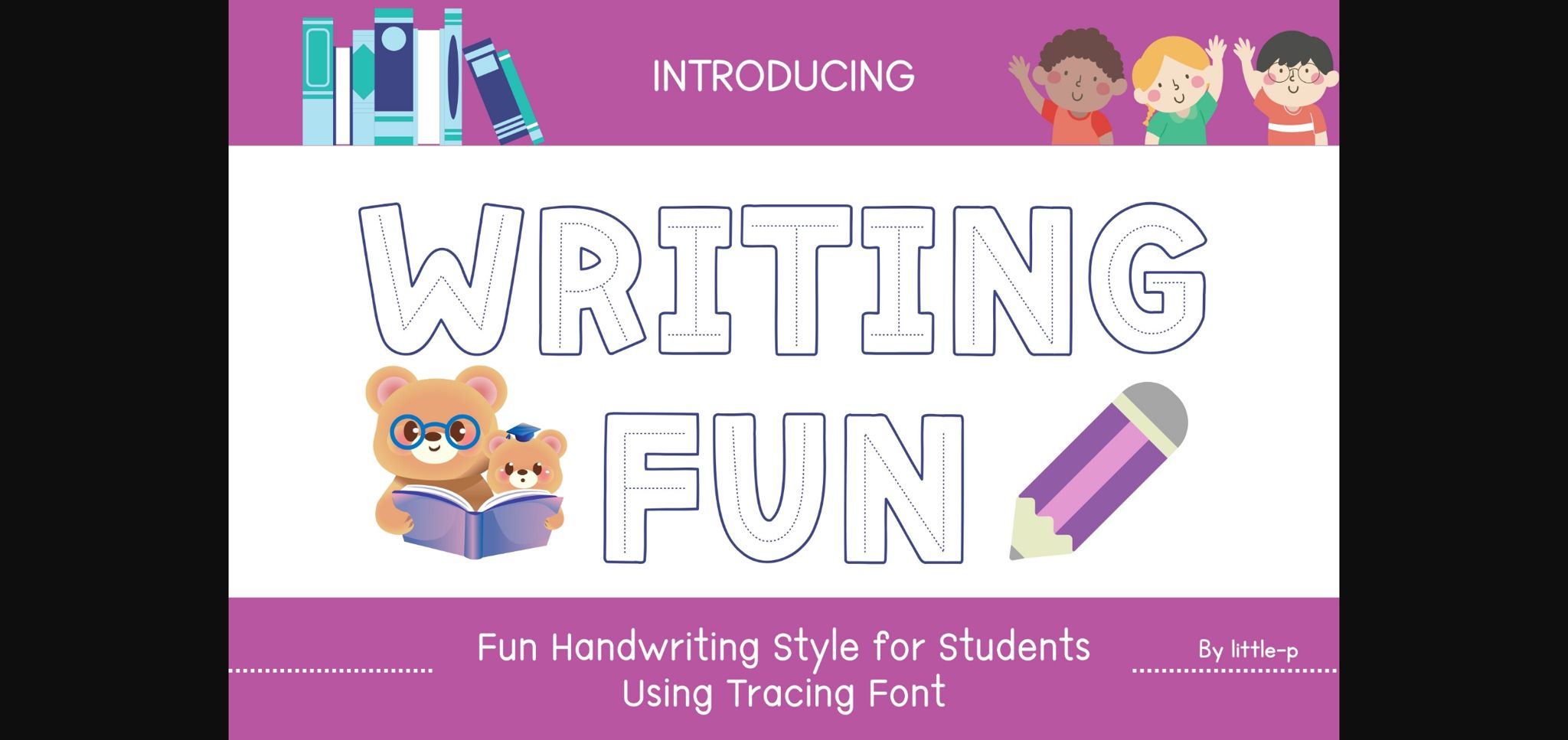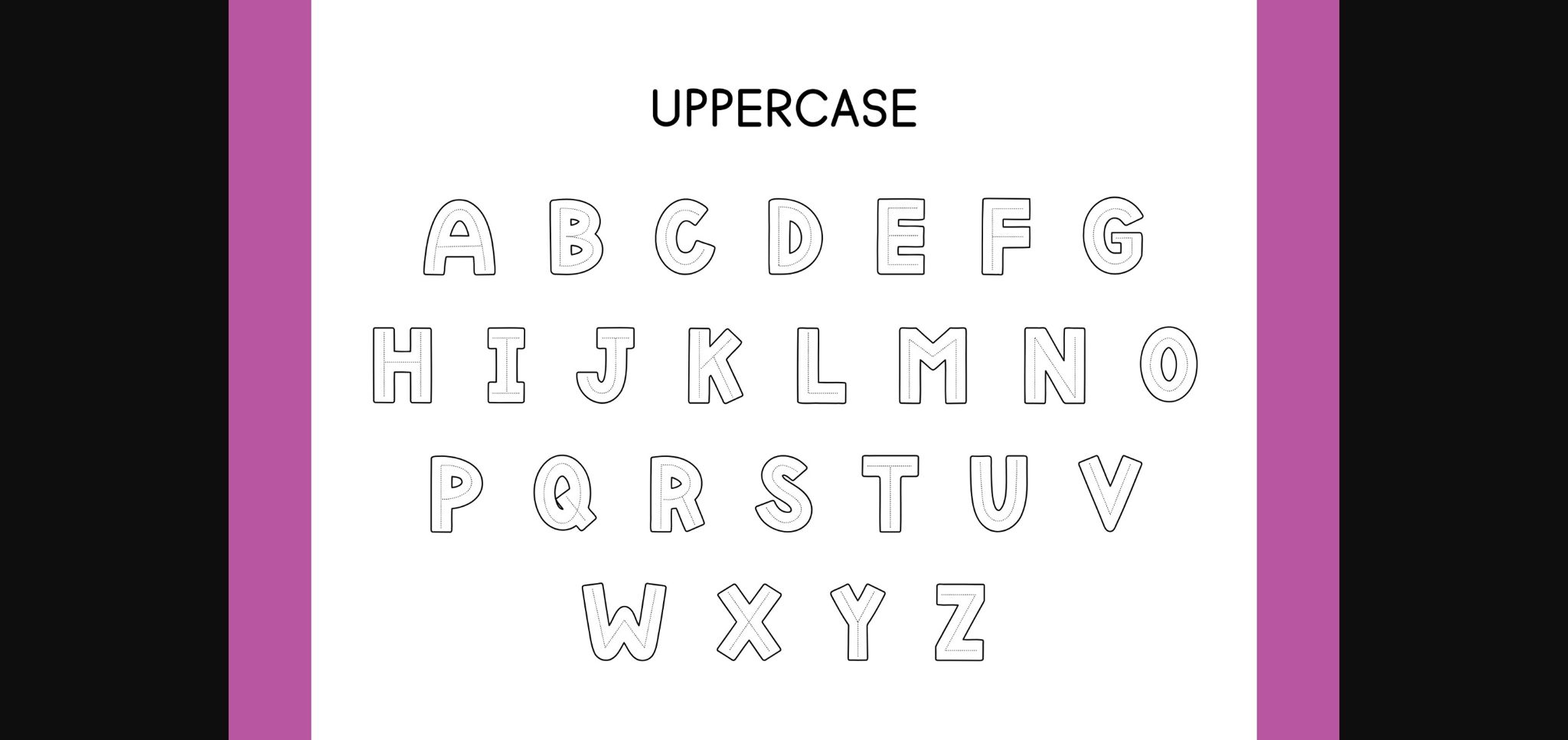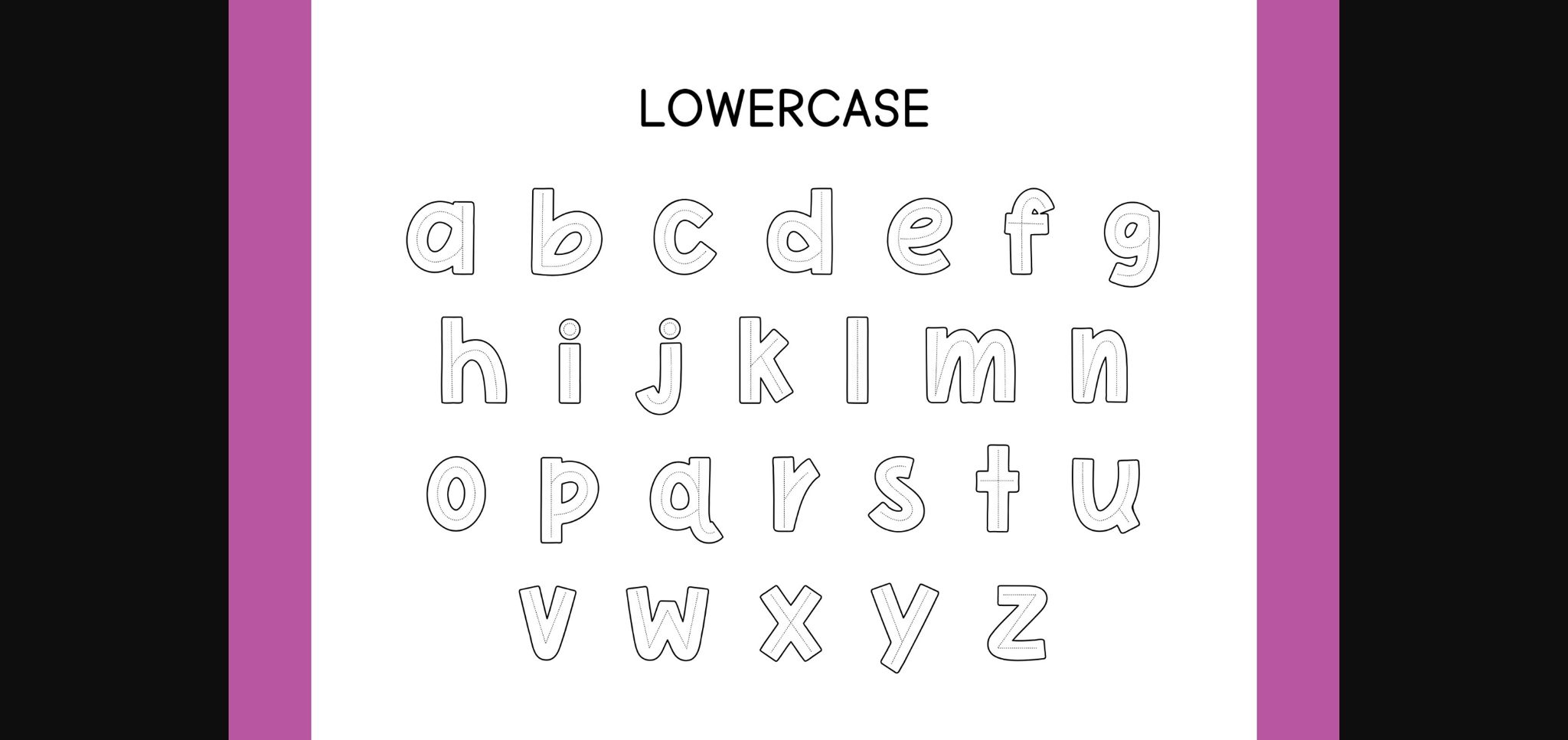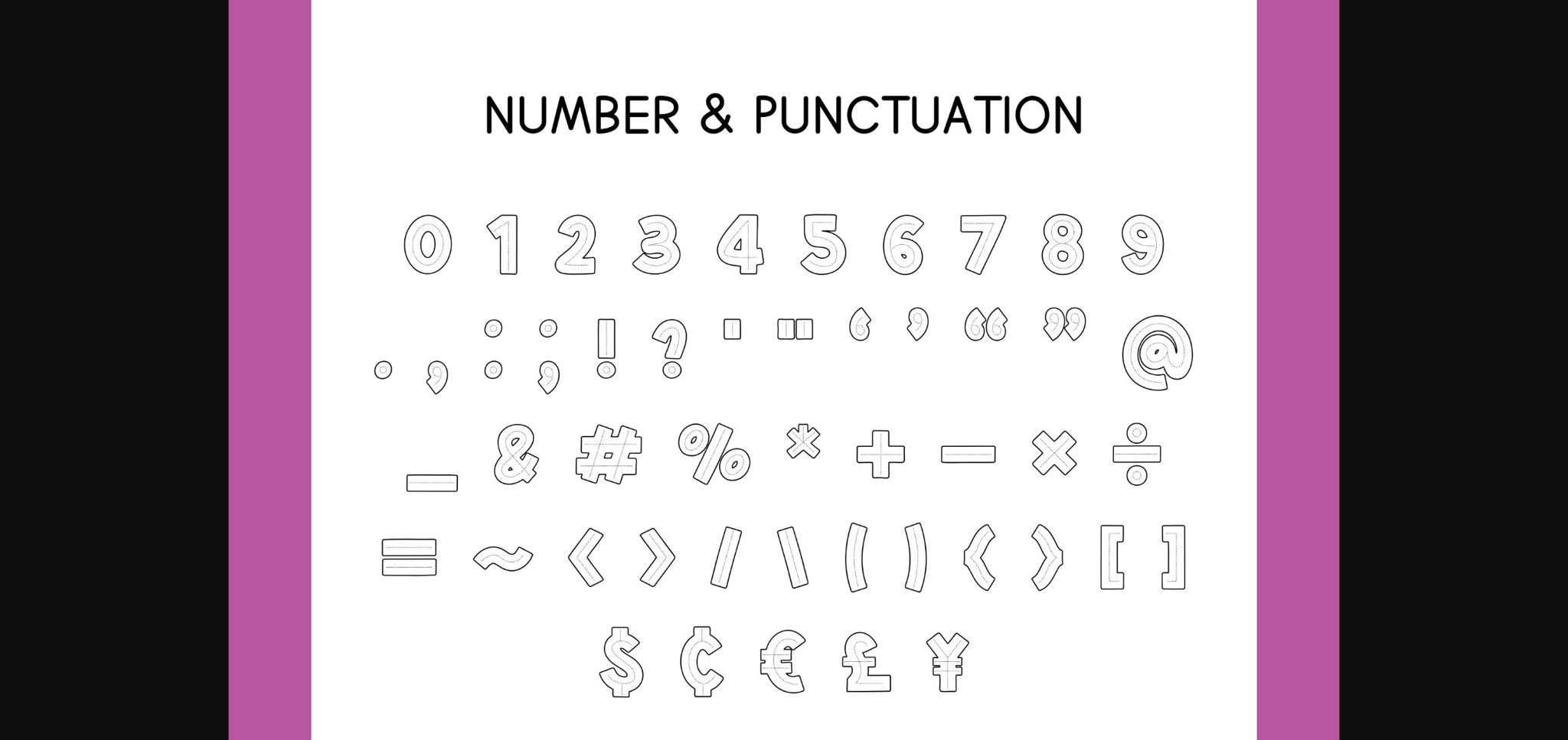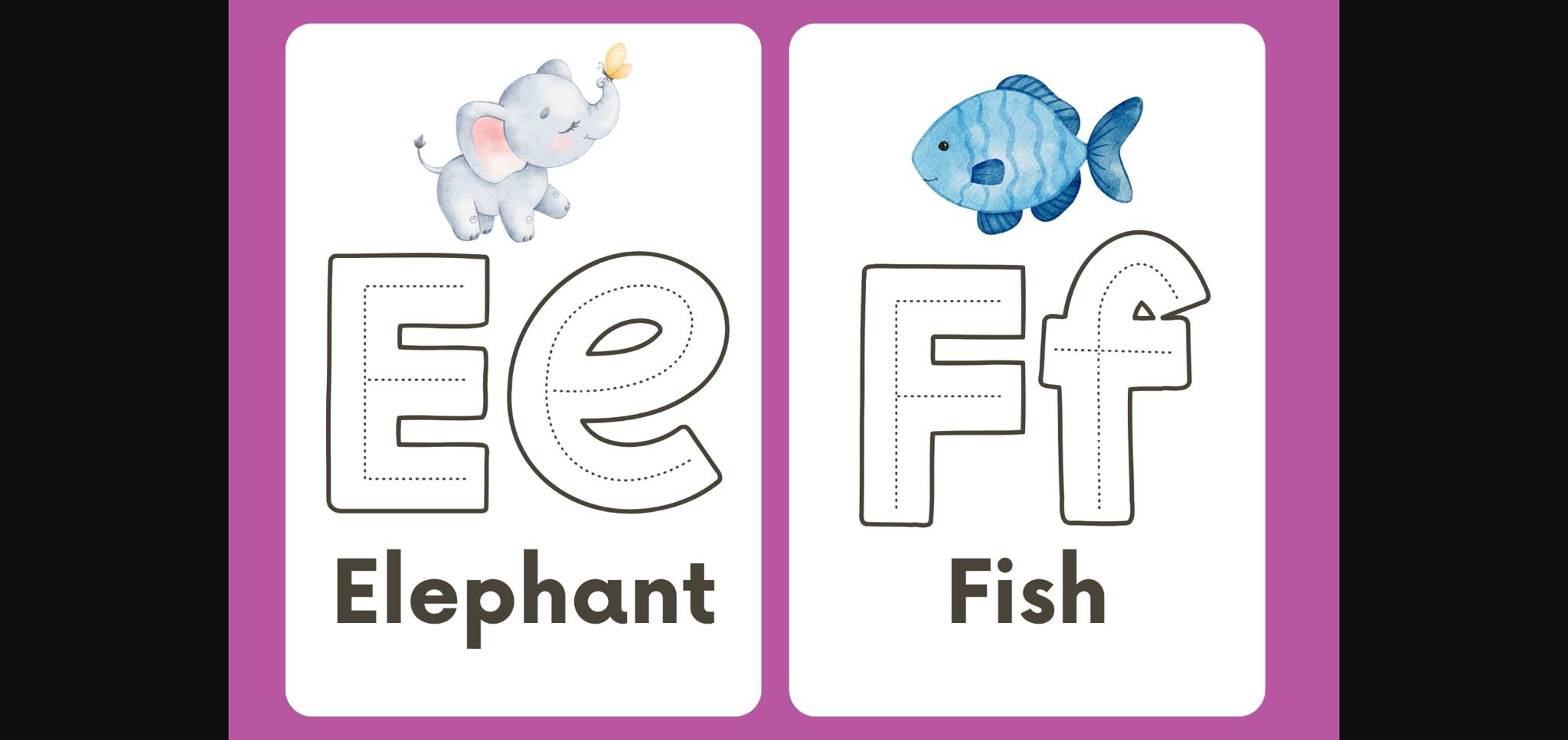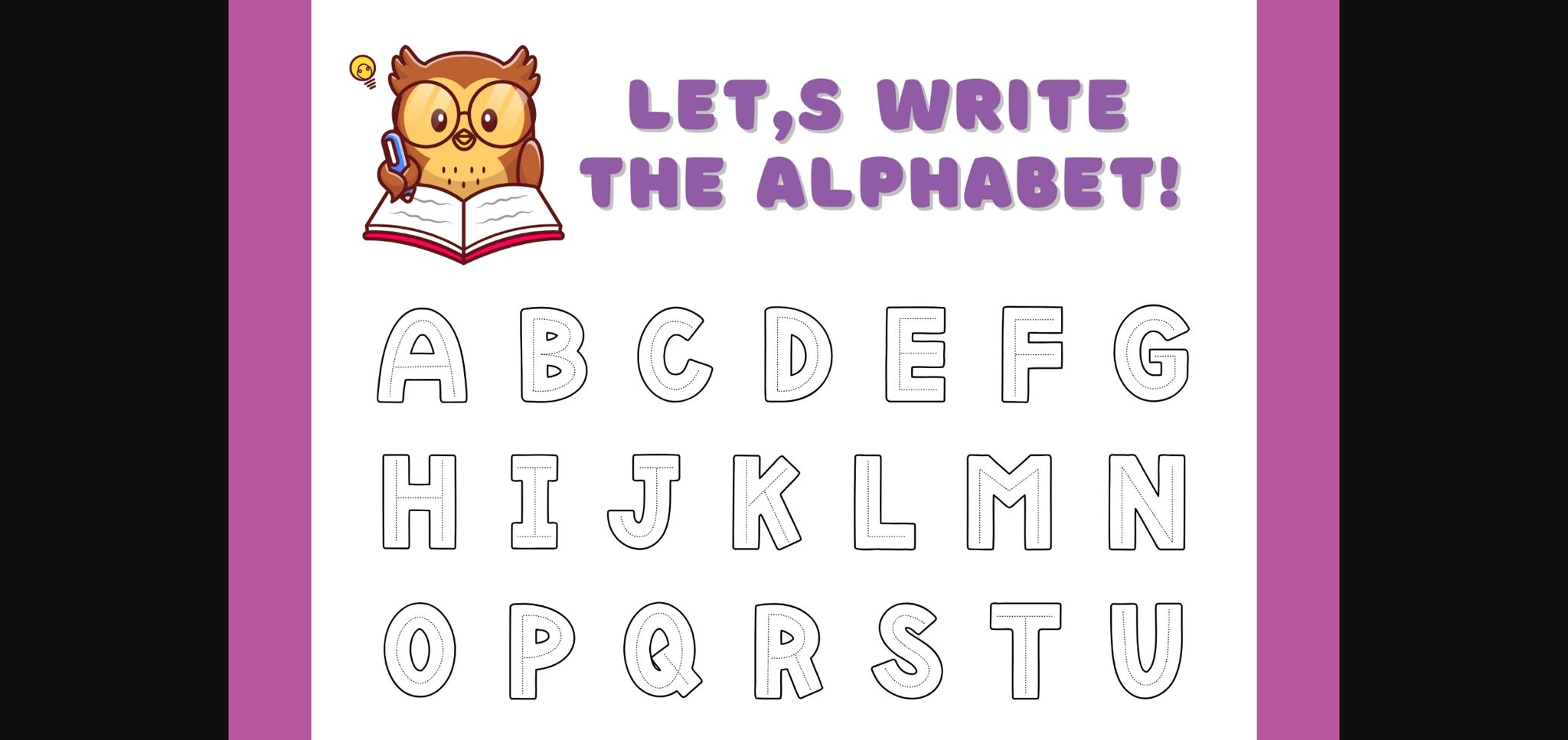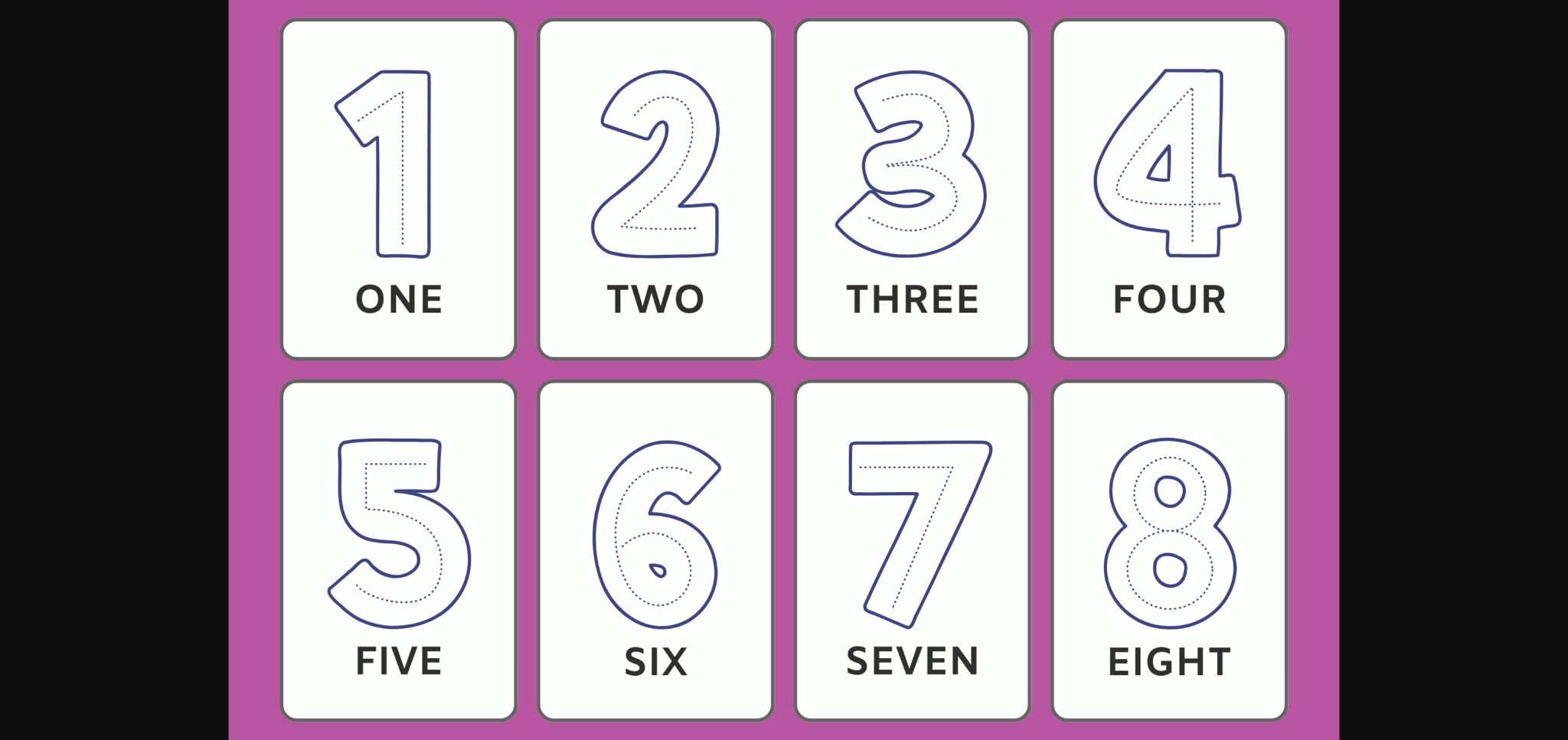
Writing Fun Font
About Writing Fun Font
Introducing “Writing Fun” a playful and engaging alphabet tracing font designed to make learning enjoyable for kids. With its bold and funny style, this font helps children practice letter recognition skills while providing a cute and appealing appearance. Whether it’s for studying, worksheets, or learning materials in schools, kindergartens, or home school environments, “Writing Fun” offers an effective tool for young learners to develop their writing skills in a fun and interactive way. Teachers and caregivers will appreciate the educational value and entertaining design of this font, making it an ideal choice for classrooms and educational settings.